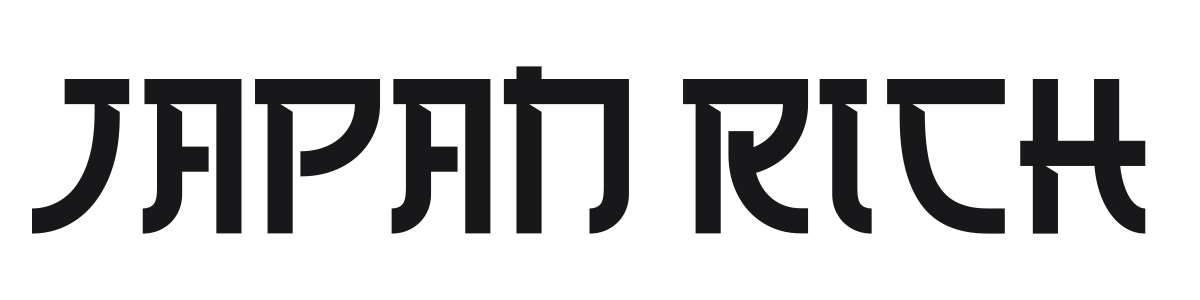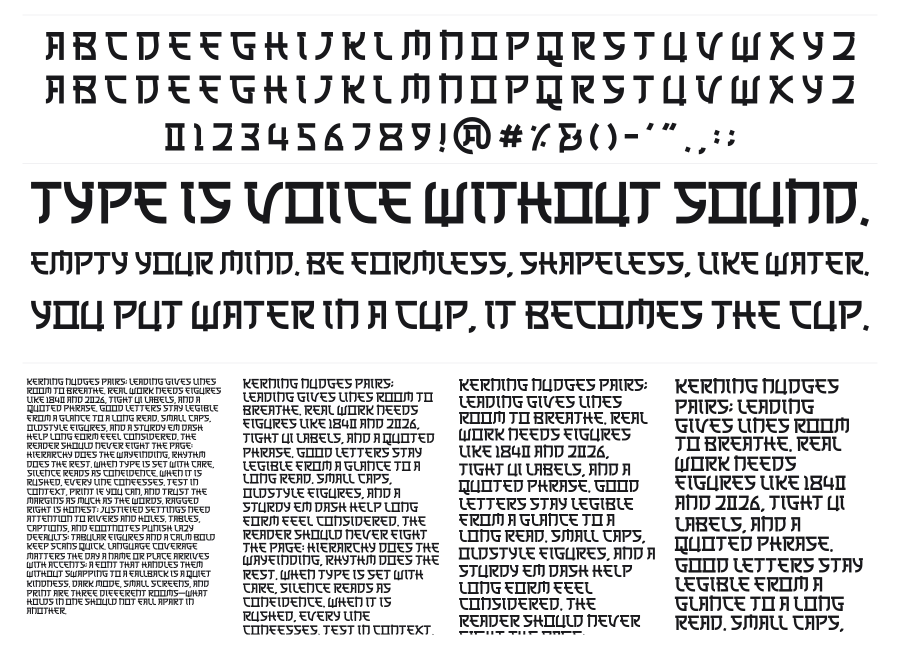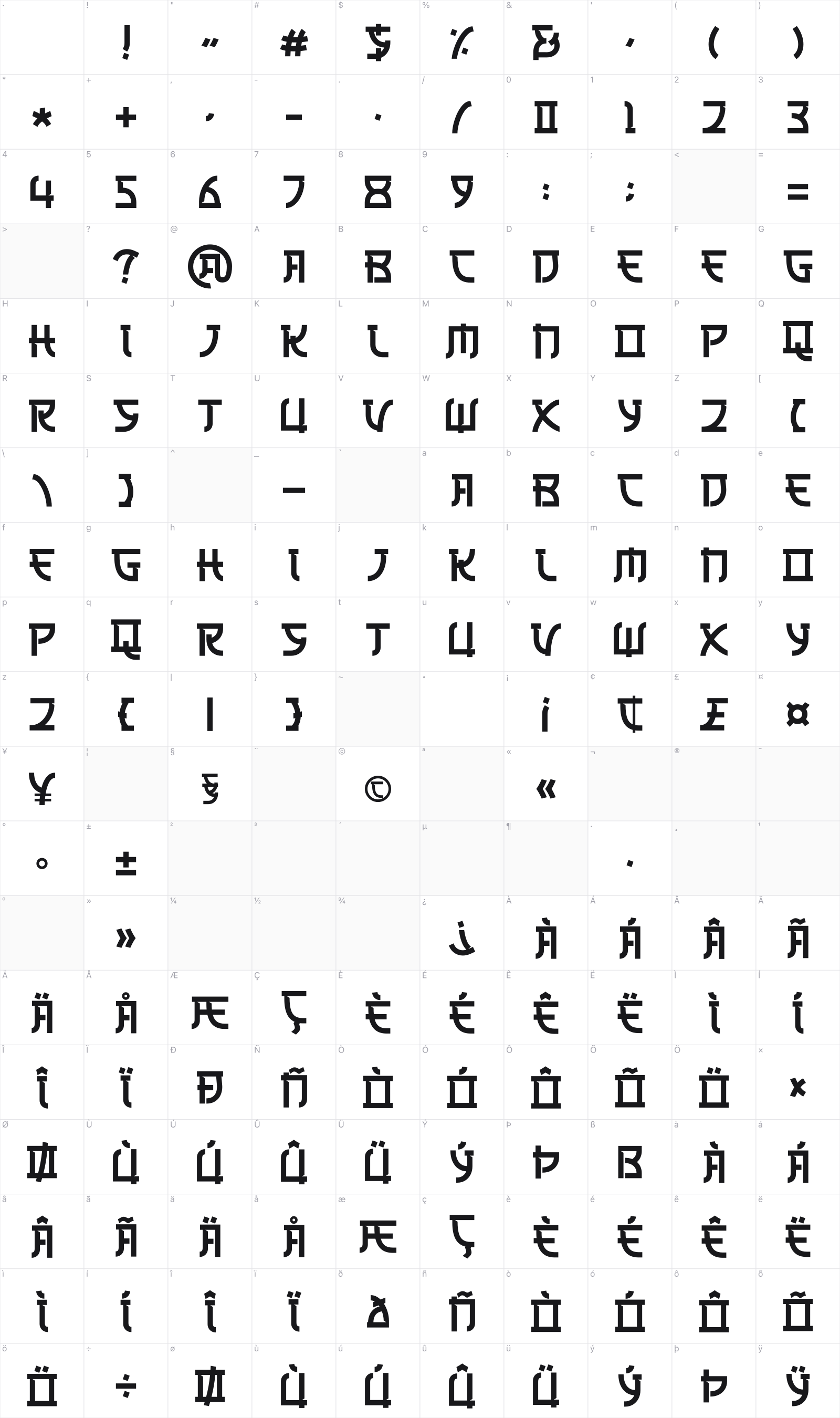
Japan Rich
Japan Rich is a heavy geometric display font built around the visual grammar of Japanese script, adapted into Latin characters. Each letter is constructed from squared, angular forms with uniform thick strokes and horizontal cuts that echo katakana structure. It carries a strong cultural presence and works best at large sizes where that architectural density can register.